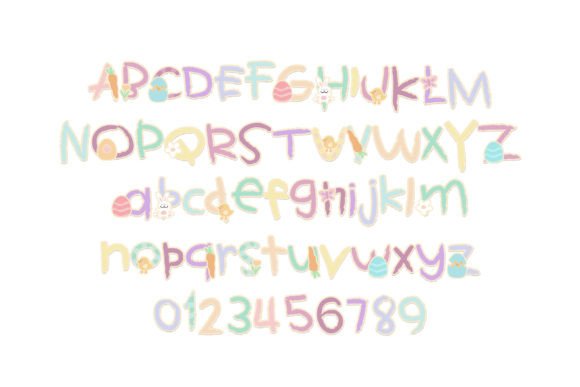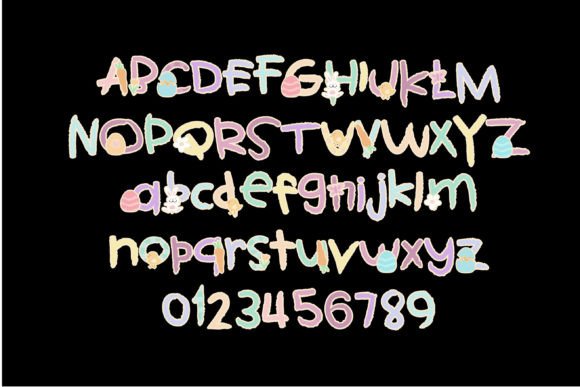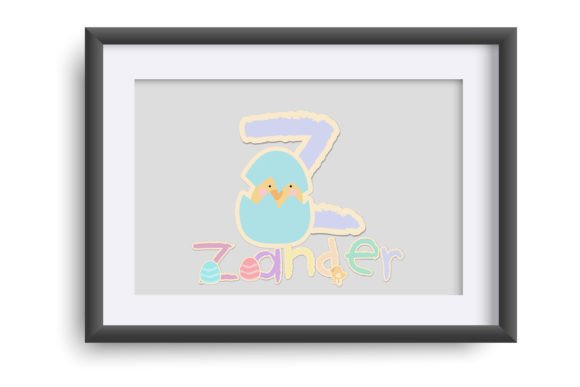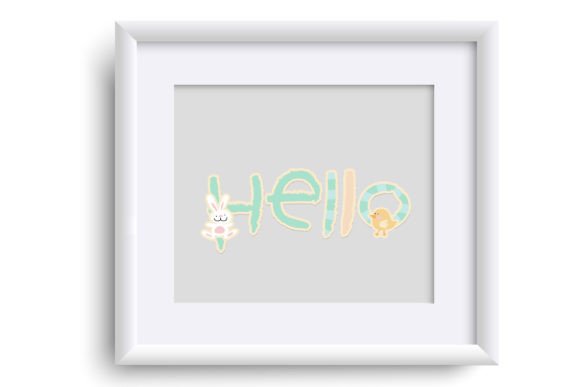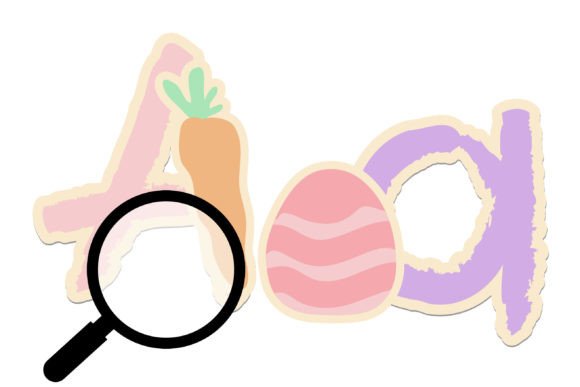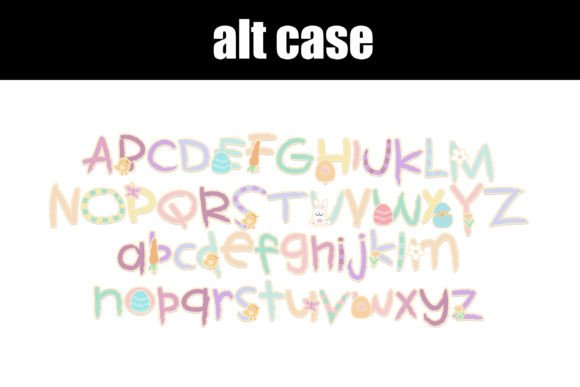
Introduction to Kids Easter Font
As a designer, there’s nothing quite like the thrill of brainstorming creative ideas for an upcoming project. Maybe it’s a social media campaign for Easter, or perhaps a children’s book about springtime. Whatever the case, one thing is certain – the right design resource can make all the difference. That’s why we’re excited to introduce the Kids Easter Font, a high-quality, PUA-encoded font that’s bursting with fun and colorful Easter-themed designs.
With its adorable bunnies, colorful eggs, and pastel shades, the Kids Easter Font is the perfect addition to any creative project. Whether you’re working on a free download or a paid design, this font is sure to bring a playful touch to your work. And with its transparent background, you can easily overlay it on top of your design without any hassle.
As a valuable design resource, the Kids Easter Font is a must-have for any designer looking to add a touch of whimsy to their creative project. So why not give it a try and see how it can elevate your Easter-themed design to the next level?
Key Features of Kids Easter Font
- Unique Easter-themed design, perfect for creative projects related to the holiday.
- High-quality font with crisp, clear characters, ideal for use in print materials, digital designs, and more.
- Perfect for kids’ party invitations, Easter cards, and other holiday-themed projects.
Honest Review: Kids Easter Font
As a designer, I’m always on the lookout for high-quality design resources that can elevate my creative projects. The Kids Easter Font caught my attention, and I was excited to dive in and see what it had to offer.
What works well: ✨ The font is incredibly easy to use, with a simple download process and a transparent background that makes it perfect for layering over images. The design is playful and fun, making it perfect for Easter-themed projects or kids’ birthday cards.
- Perfect for Easter-themed projects or kids’ birthday cards
What doesn’t work so well: ⚠️ The font is a bit limited in its customization options, which might make it less versatile for designers who like to experiment with different styles.
Overall, I think the Kids Easter Font is a great addition to any designer’s toolkit. While it may have some limitations, its ease of use and high-quality design make it a great choice for creative projects.
The Kids Easter Font is ideal for a variety of creative projects, including:
- Easter-themed invitations and cards.
- Children’s party decorations and banners.
- Spring-themed social media graphics and posts.